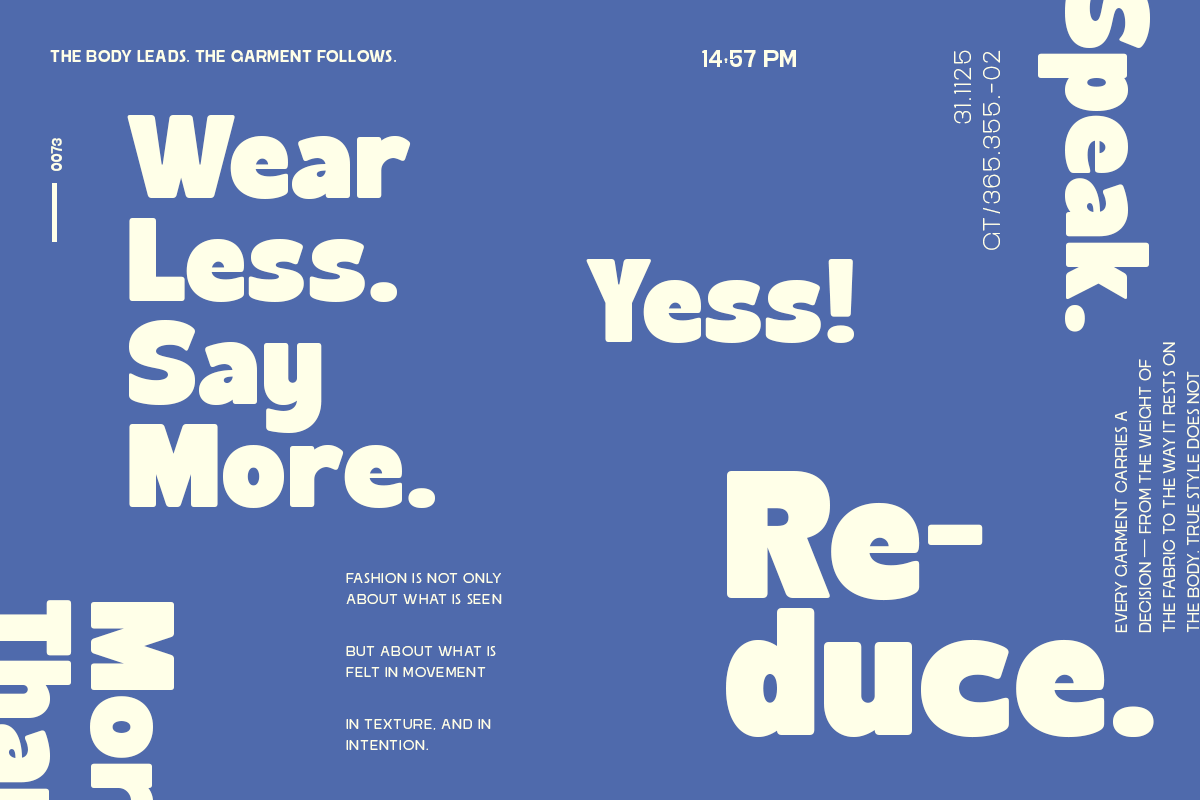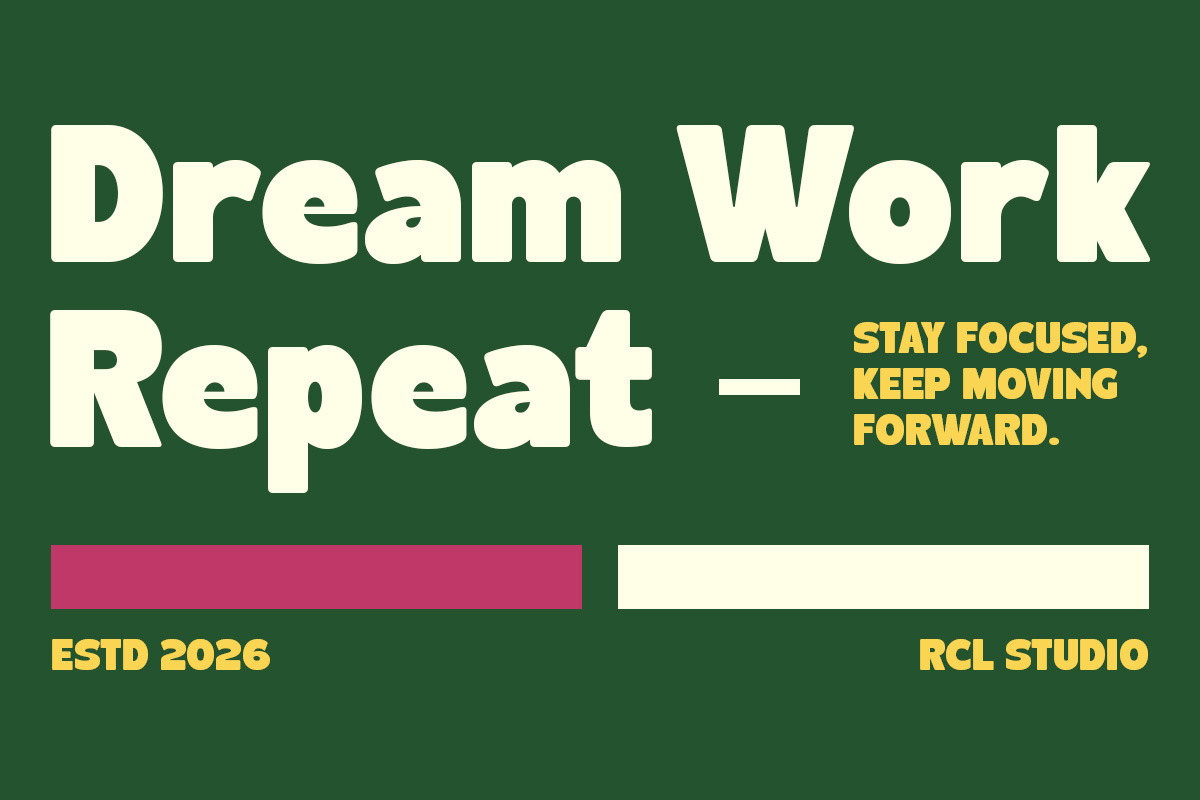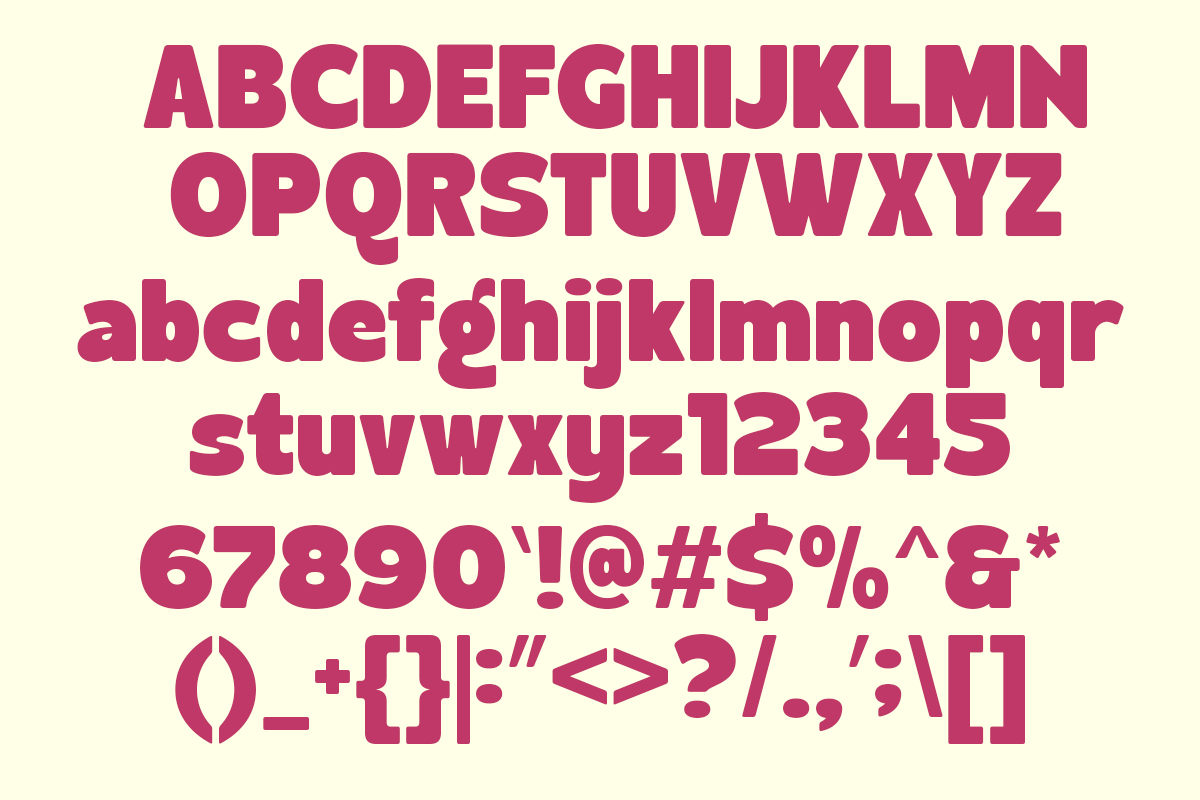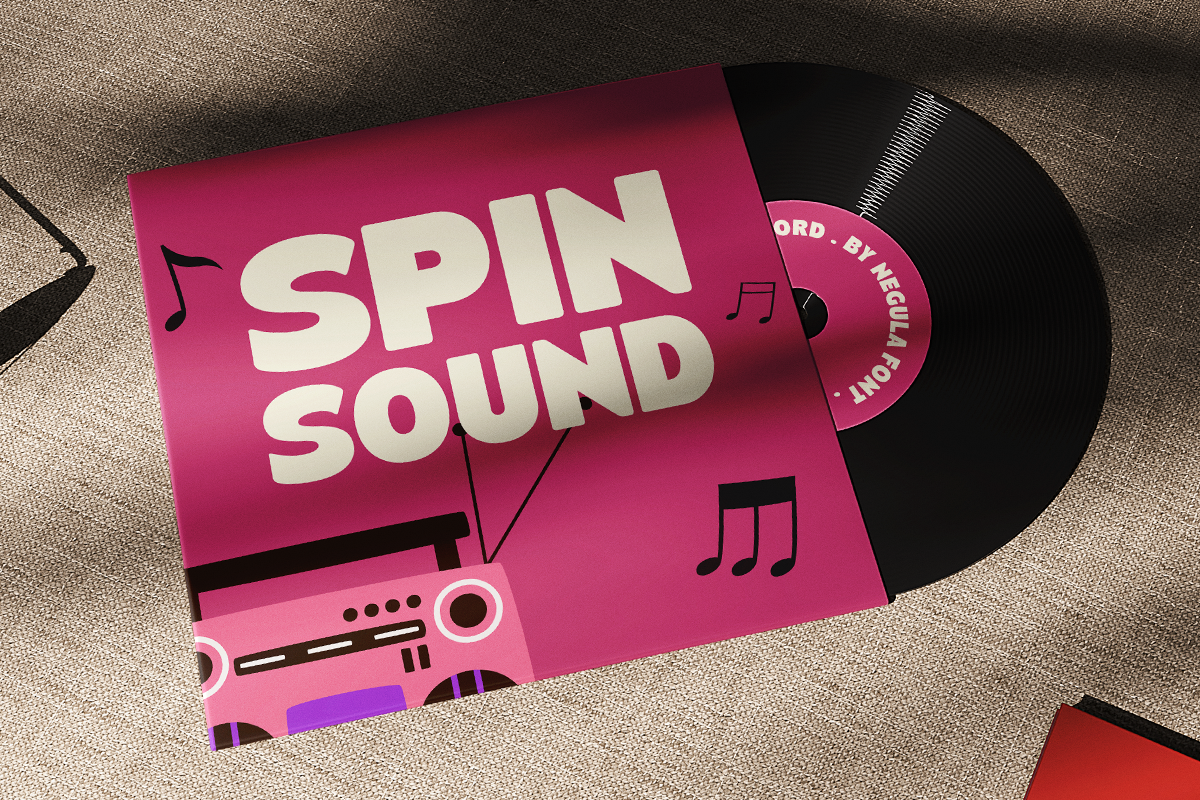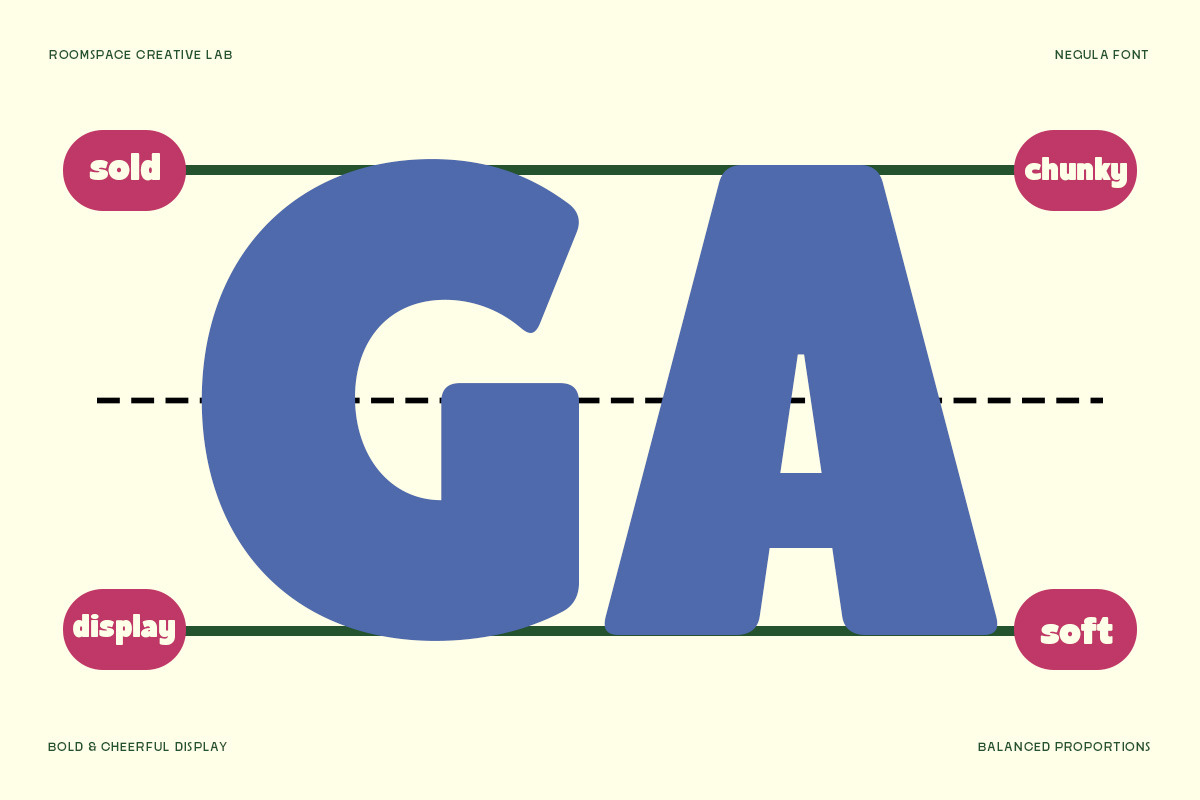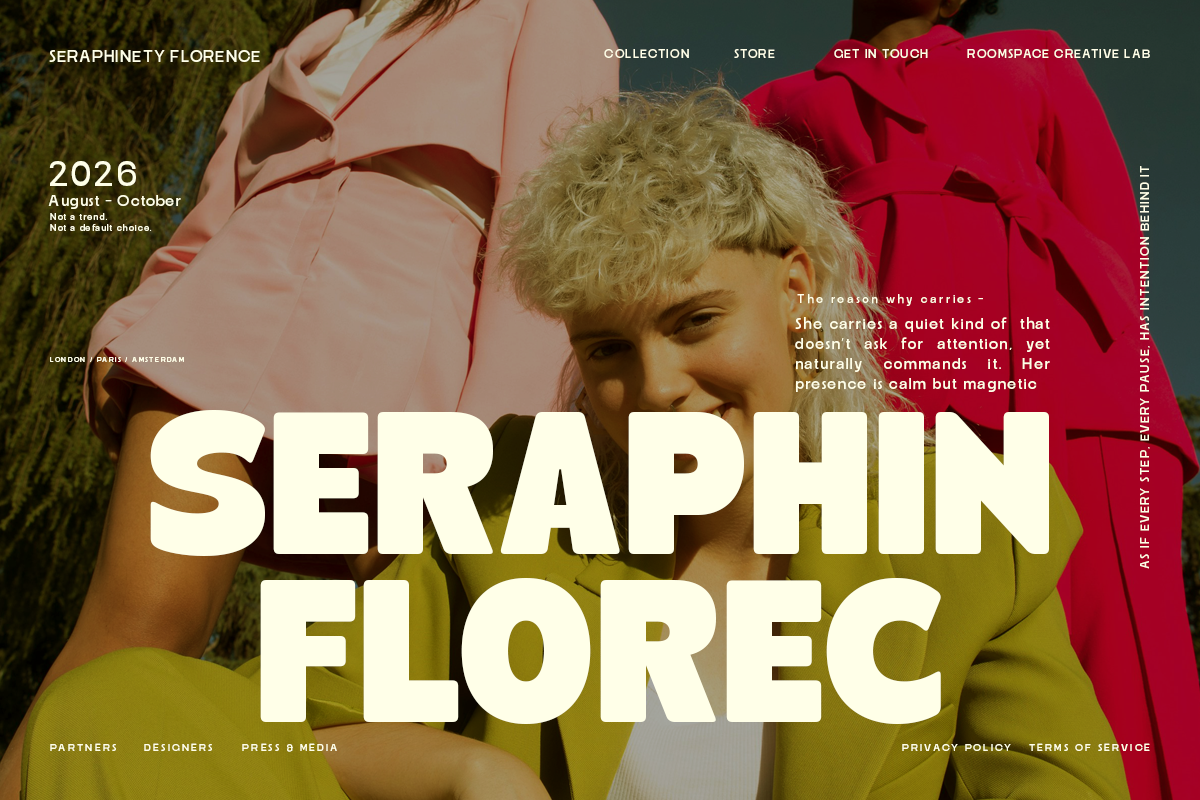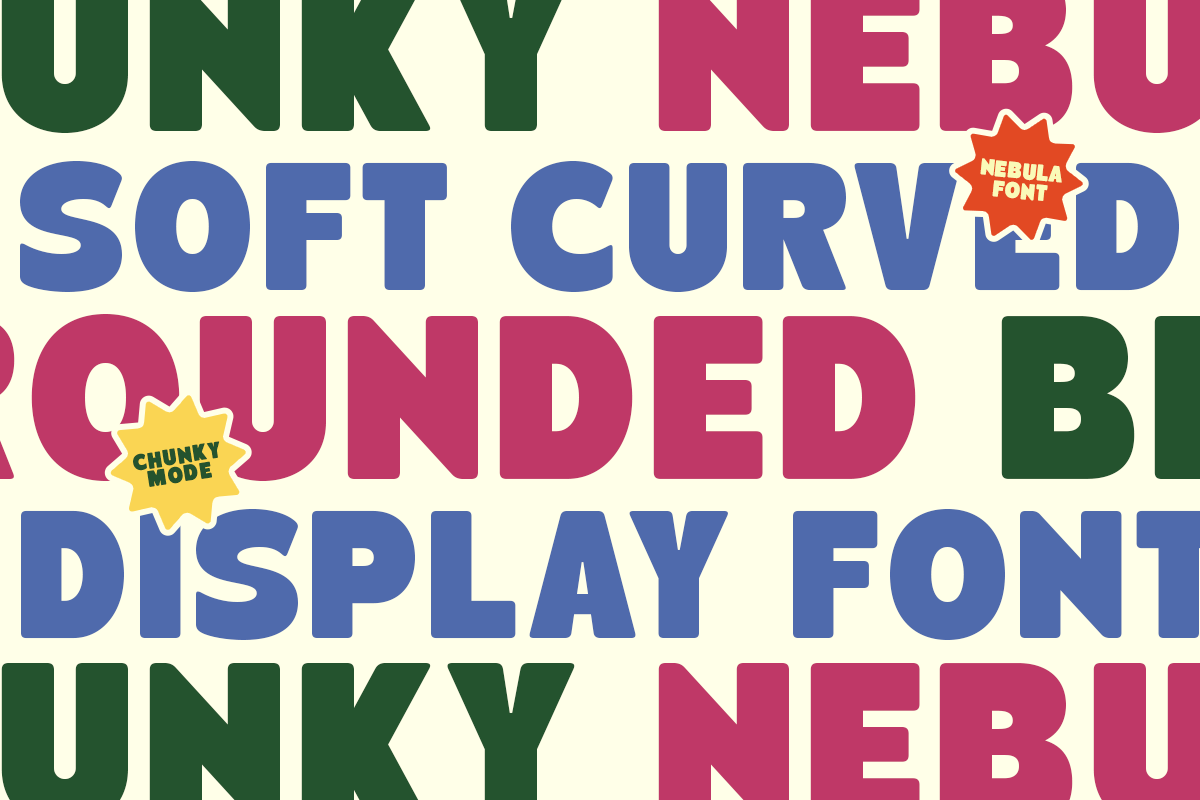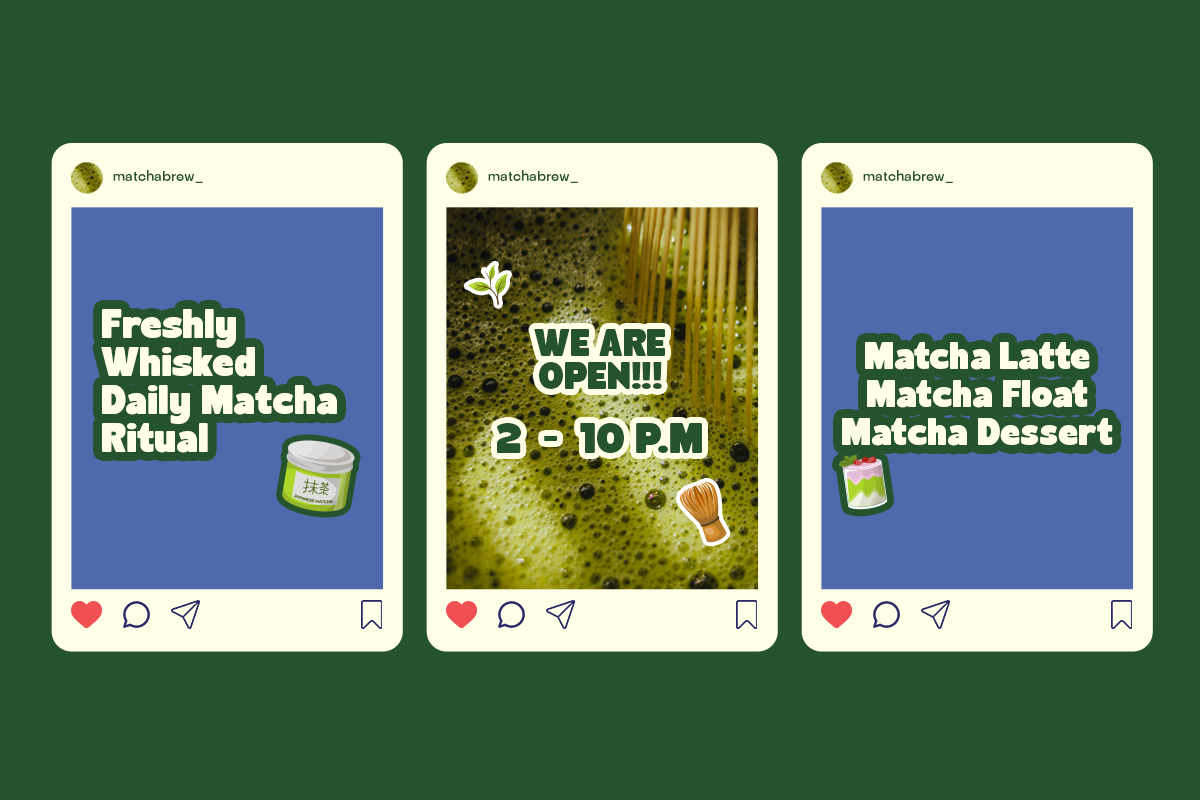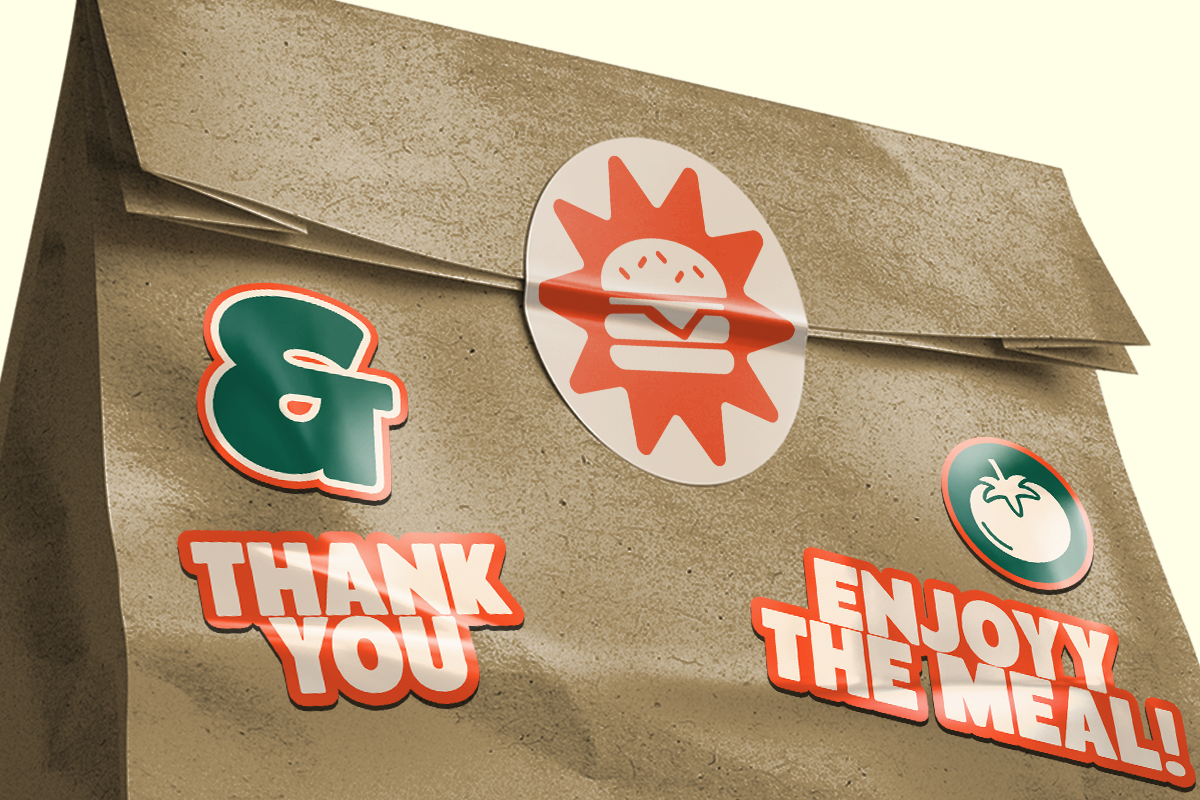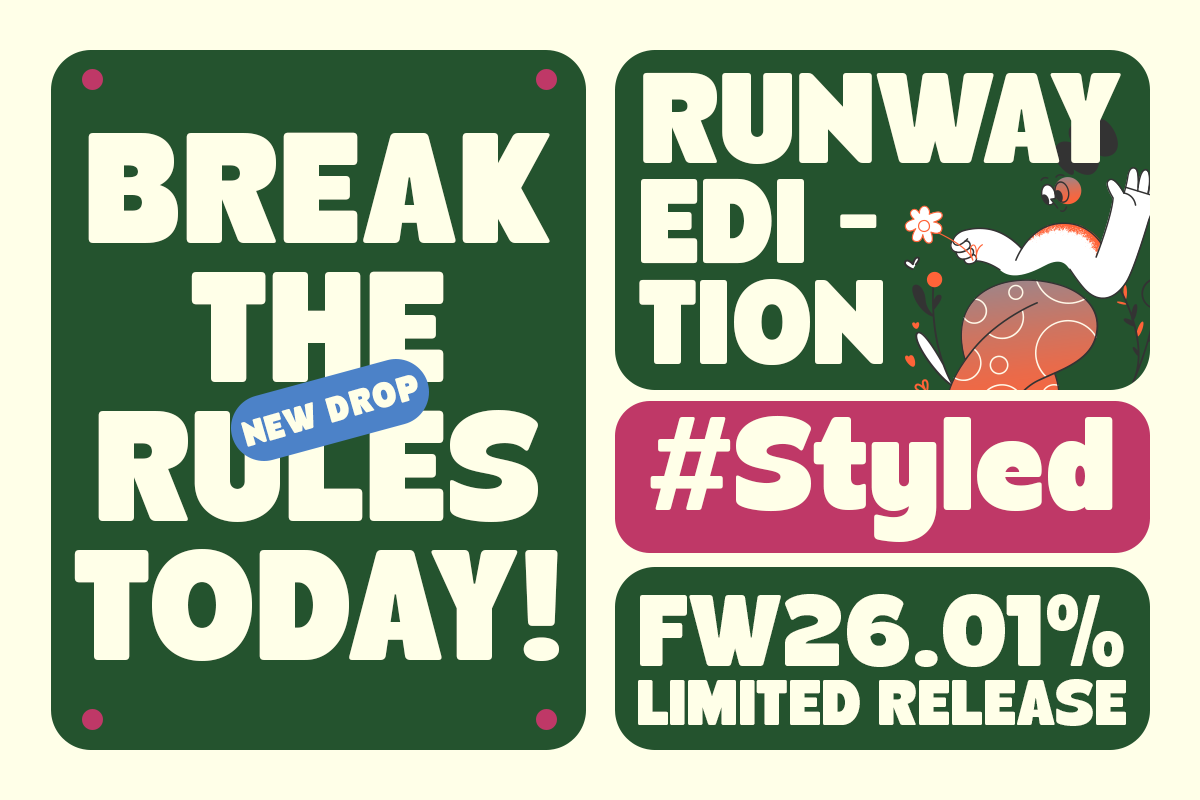
Negula – Playful Rounded Display
Negula is a playful rounded display typeface that combines friendliness with bold visual impact. Its soft curves and approachable structure make it ideal for branding projects that need warmth, charm, and strong recognition. Whether you're designing food packaging, toy brands, social media content, or modern logos, Negula helps brands feel instantly more human and memorable.
Rounded display style
Bold construction
Uppercase & lowercase
Professional kerning
Perfect For : Food branding, cafés, ice cream shops, toy packaging, children’s brands, pet products, YouTube graphics, lifestyle brands, and social campaigns.